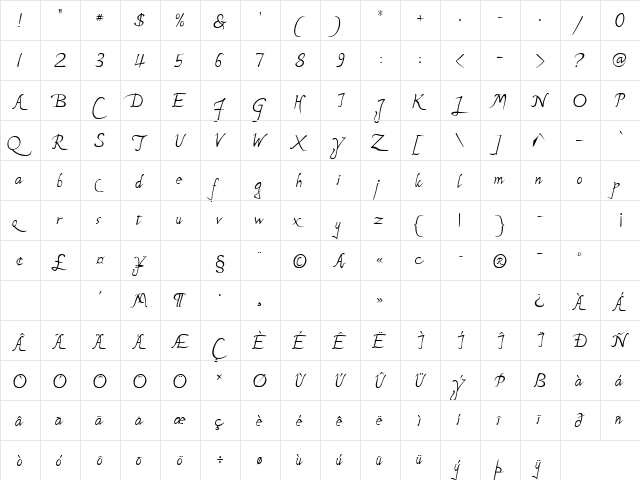
Michelangelo Regular
Design Context for Michelangelo Typeface
Michelangelo takes a measured approach to typography — its balanced proportions and neutral character make it a reliable workhorse for both digital and print work.